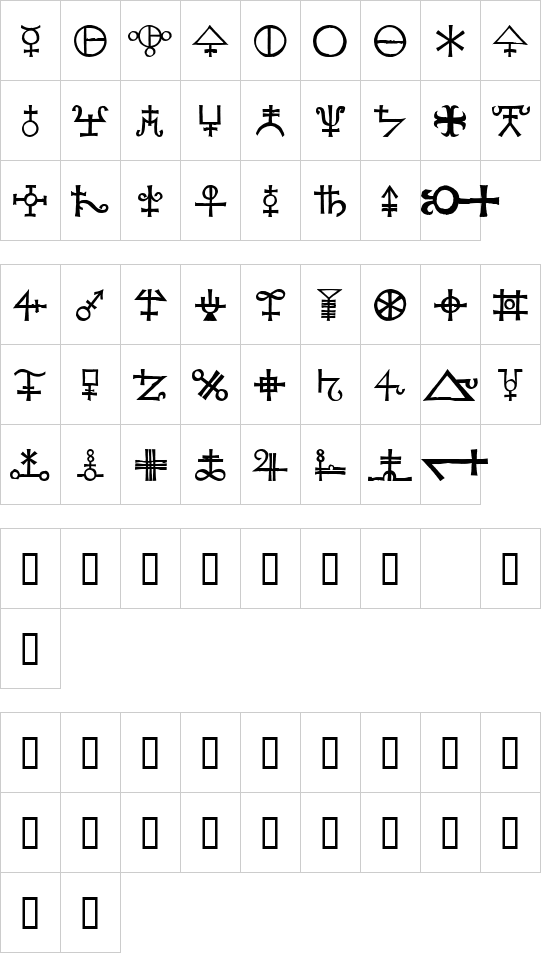
Agathodaimon is a dingbat font filled with mysterious decorative symbols and esoteric ornamental glyphs rather than letters. Each character delivers a ready graphic with an occult or arcane mood, leaning on sigils, frames, and arcane marks that share a dark, hand-drawn consistency across the set.
It fits fantasy game art, mystical branding, tarot and zine layouts, ritual-themed posters, and other projects that want an arcane accent. Agathodaimon is free to download as a TrueType file, and you can preview it by typing across the keyboard to see which symbol appears on each key before arranging them into your design.